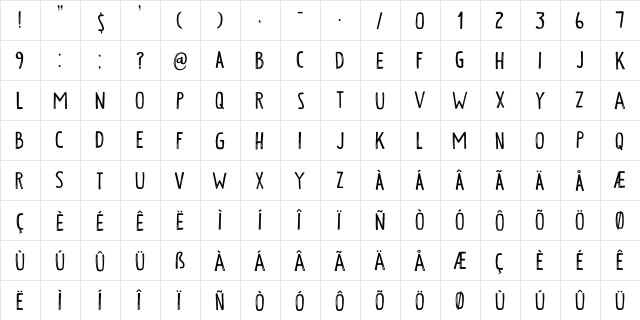
Ogenblik DEMO Regular
| Foundry | David Kerkhoff |
| Designer | David Kerkhoff |
Design Context for Ogenblik DEMO Typeface
Ogenblik DEMO takes a measured approach to typography — its balanced proportions and neutral character make it a reliable workhorse for both digital and print work.